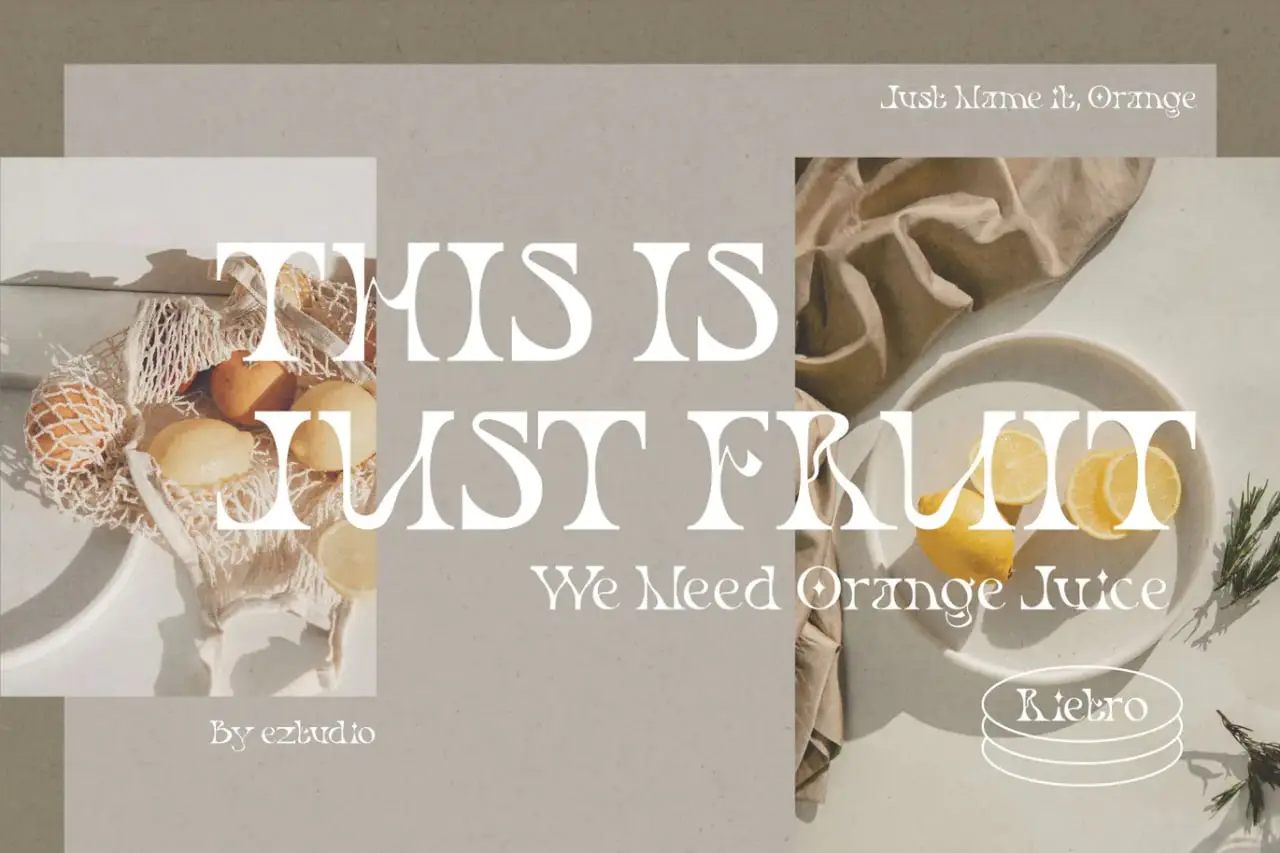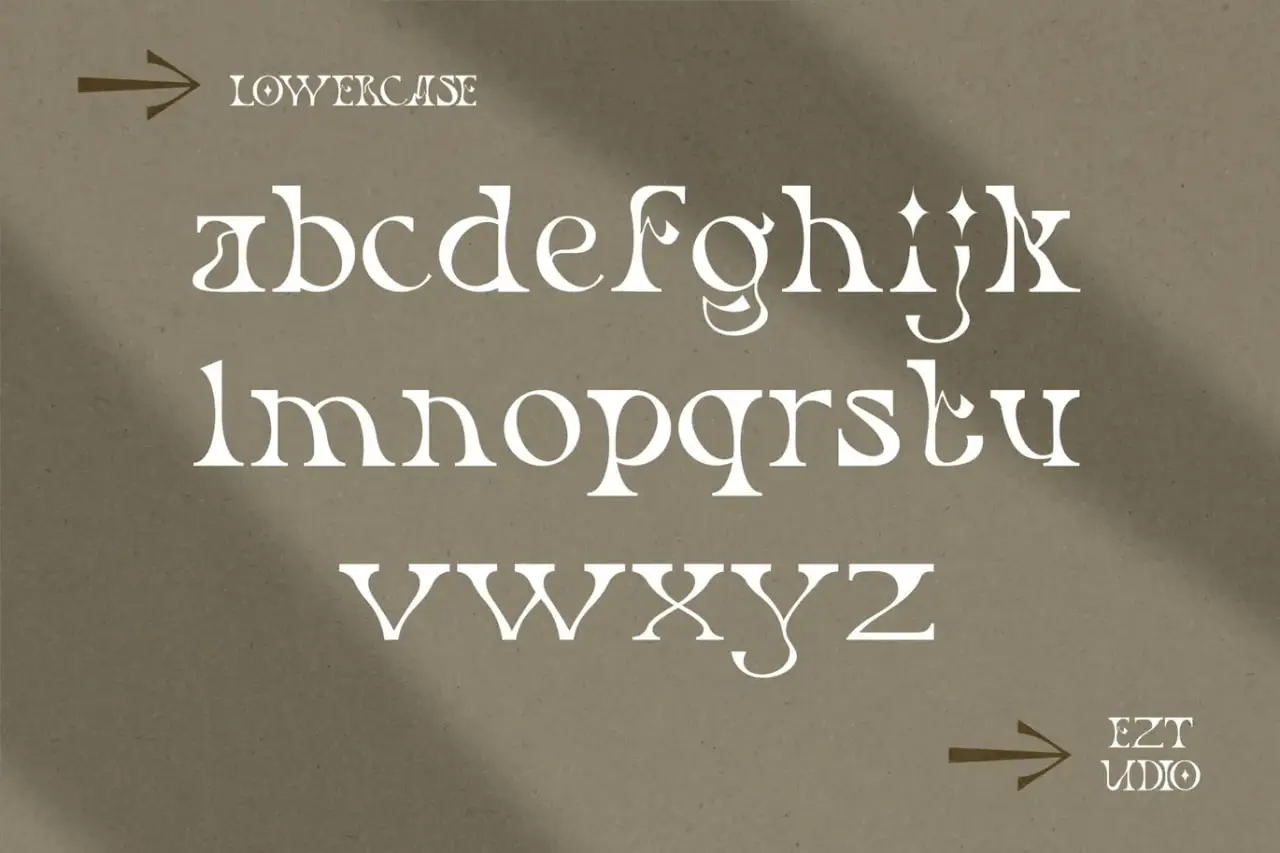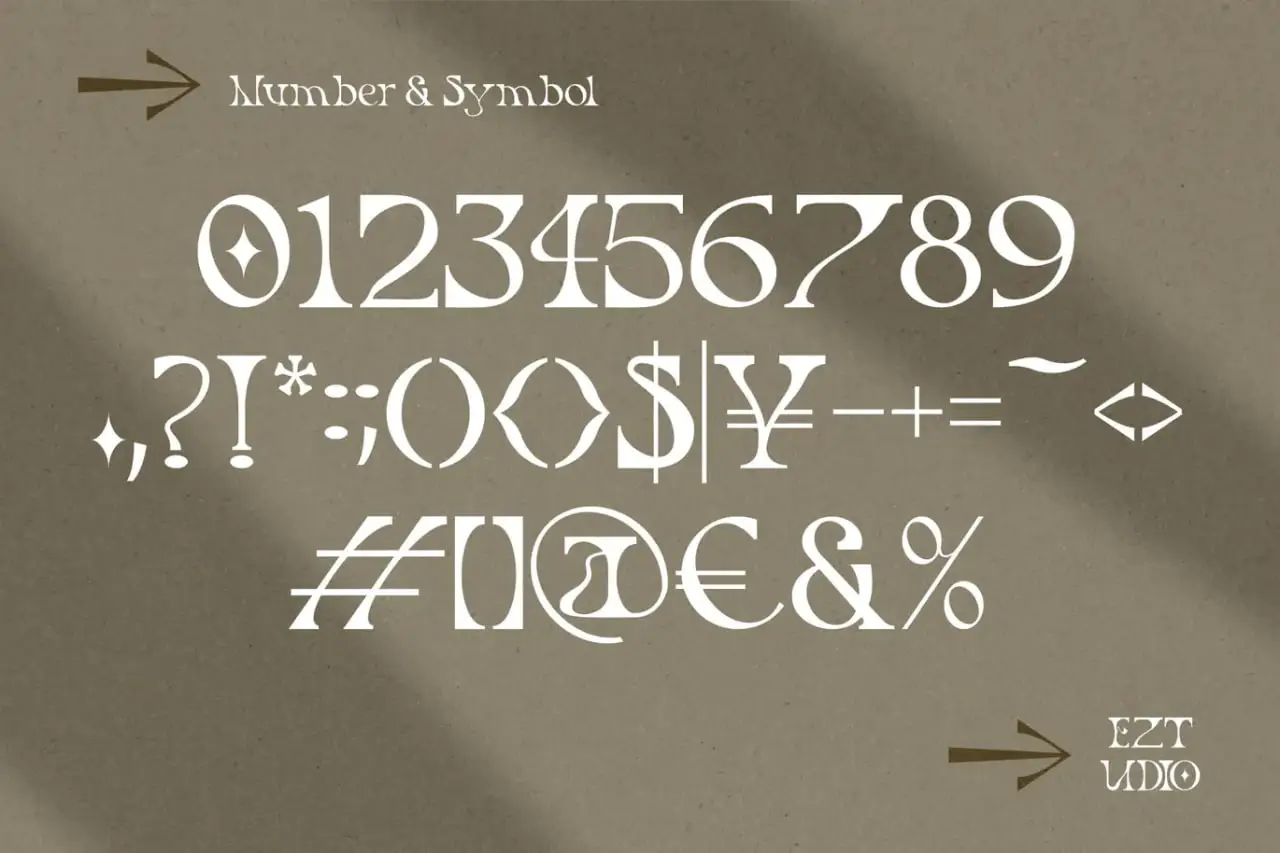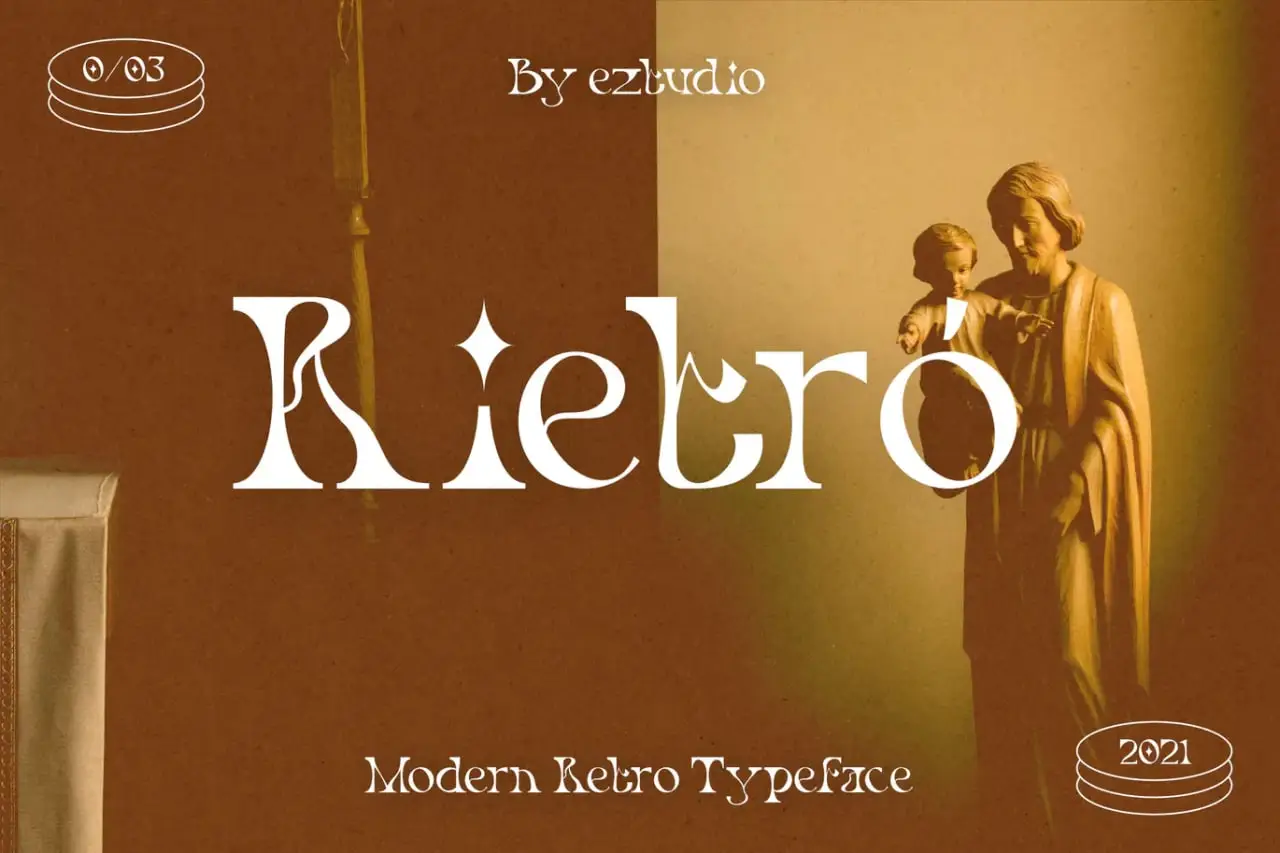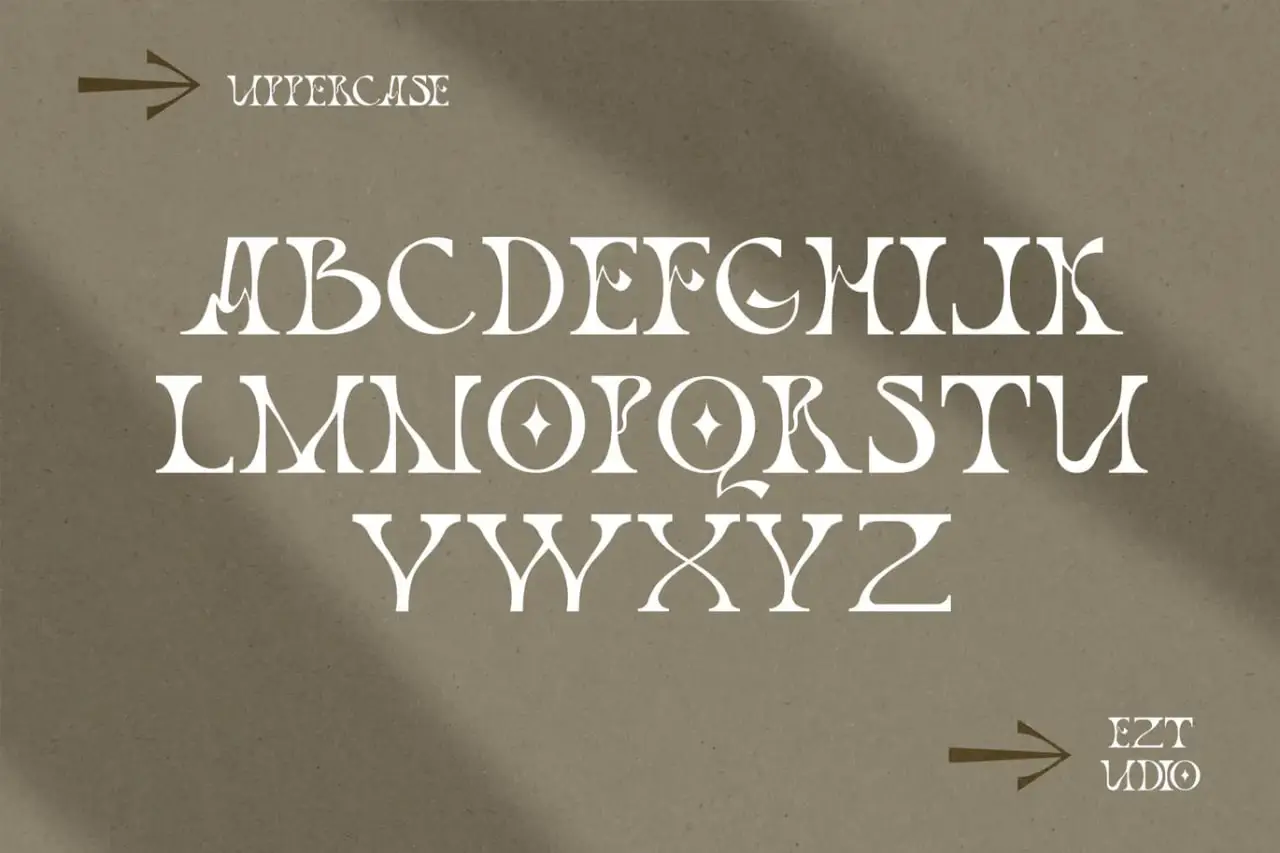
Rietro-Modern Retro Font
The Rietro-Modern Retro Font is a stylish typeface that captures the essence of retro design while maintaining a contemporary feel. This font is perfect for a variety of applications, including branding, logos, web design, and print materials.
• Unique retro-inspired design
• Multiple weights available for versatility
• Special characters and punctuation included
• Style: Modern Retro
• Ideal for creating eye-catching logos and branding materials
• Use for headlines and titles to add a vintage touch
• Perfect for posters, invitations, and social media graphics